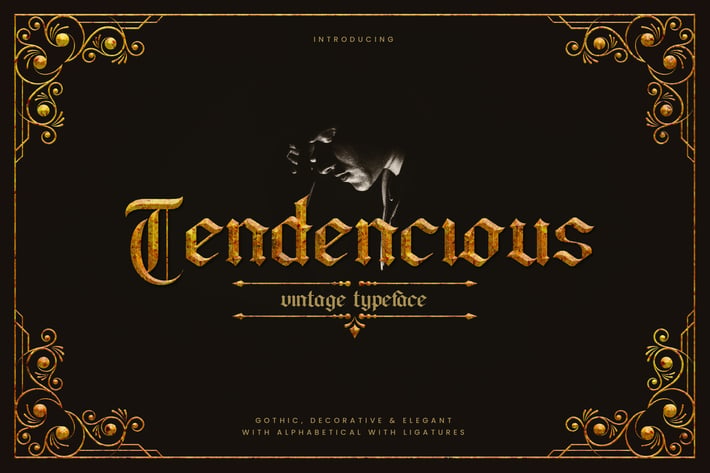
Tendencious - Vintage Gothic Display Typeface
Introducing Tendencious font. Are you looking for a bold and solid gothic display font that has vintage blackletter feeling? We can help! Try to download our Tendencious font. The font is suitable to use for any vintage occasion such as book, logo, band, event, and others :)